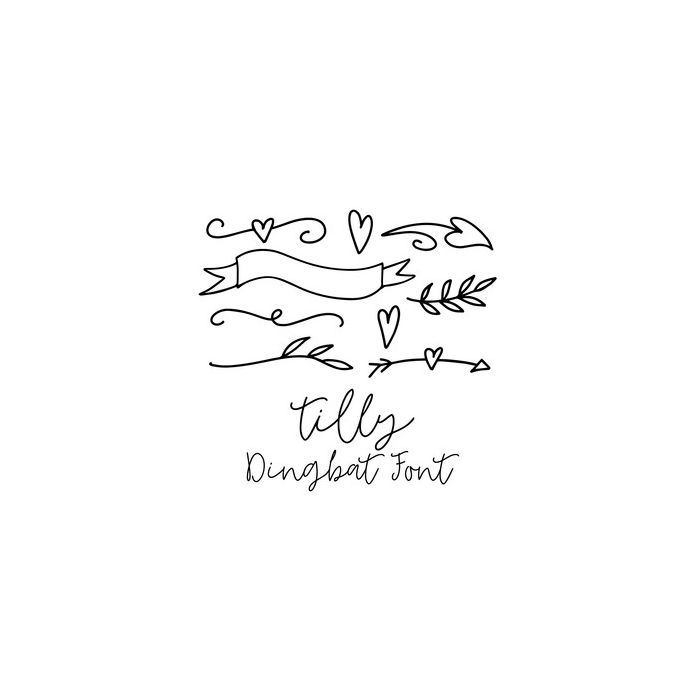
Tilly Dingbat font includes 26 shapes which you can type out using the characters a-z,
There are lovely shapes included like flourishes, leaves, hearts, swirls and arrows